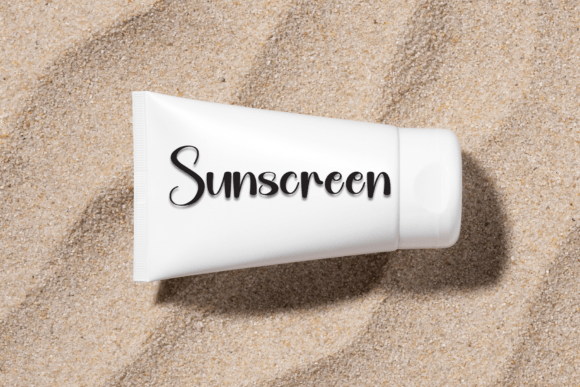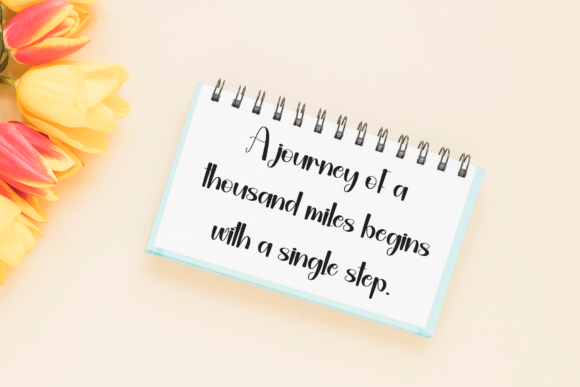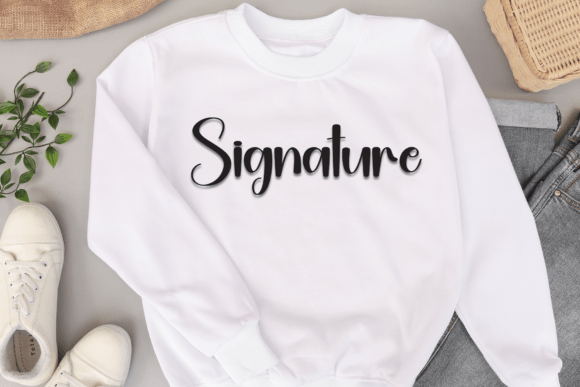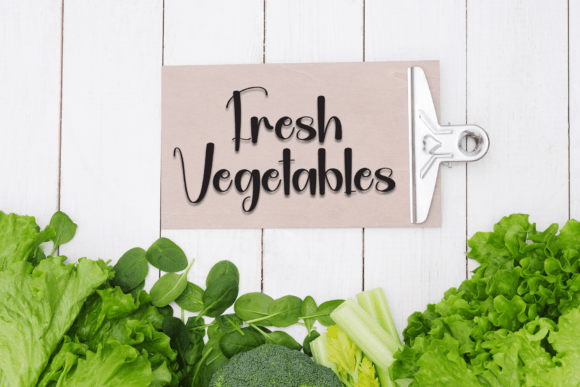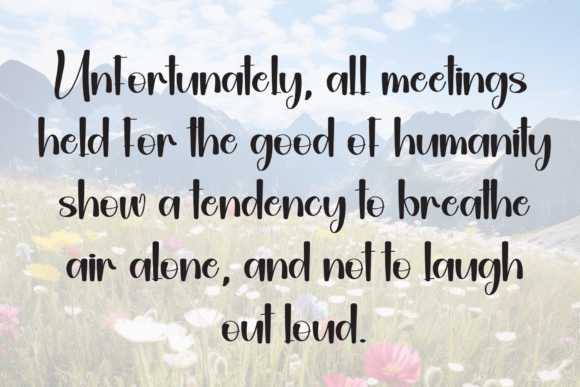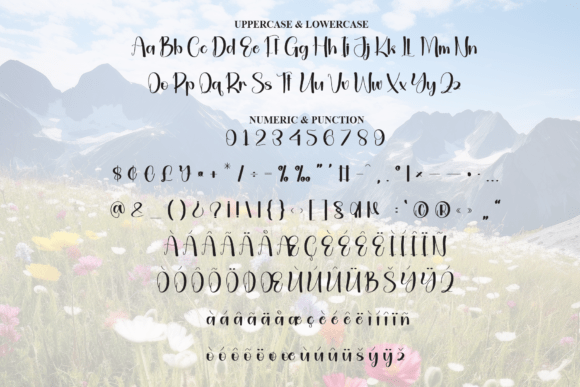
Enter the Kamilla Highland Font, a casual and neat display font designed to bring a touch of elegance to your designs. With its clean structure and approachable style, this font is perfect for branding, headlines, and everyday designs. Whether you’re a seasoned designer or just starting out, the Kamilla Highland Font is a valuable addition to any toolkit, offering readability and charm that makes every message feel genuine and inviting.
Kamilla Highland Font Key Features
- Font Family: Kamilla Highland Font is a unique, hand-drawn script font that offers a distinctive and elegant feel.
- Unique Characteristics: Features a mix of calligraphic and handwritten elements, giving it a personal and creative touch, ideal for branding, invitations, and editorial designs.
Kamilla Highland Font Review
First impressions are everything, and the Kamilla Highland Font doesn’t disappoint ✨. The font’s rustic, elegant feel immediately drew me in, and I could see it being used in a variety of contexts, from wedding invitations to outdoor-themed branding.
One of the standout features of the Kamilla Highland Font is its excellent legibility, even at smaller sizes ✨. The font’s x-height and letter spacing are well-balanced, making it easy to read and comprehend. Additionally, the font’s many OpenType features allow for a wide range of creative possibilities, from subtle ligatures to dramatic swashes.
Overall, I’m very impressed with the Kamilla Highland Font ✨. Its unique blend of elegance and rustic charm makes it a standout in the world of fonts, and its excellent legibility and OpenType features make it a joy to work with. While there are a few limitations to consider, I would highly recommend the Kamilla Highland Font to designers and artists looking for a beautiful, versatile font.
- ✨ Excellent legibility, even at smaller sizes
- ✨ Many OpenType features for creative possibilities
- ✨ Unique blend of elegance and rustic charm
The Kamilla Highland Font is ideal for:
- Creating elegant and sophisticated designs.
- Adding a touch of luxury to your branding materials.
- Designing invitations, certificates, and other formal documents.